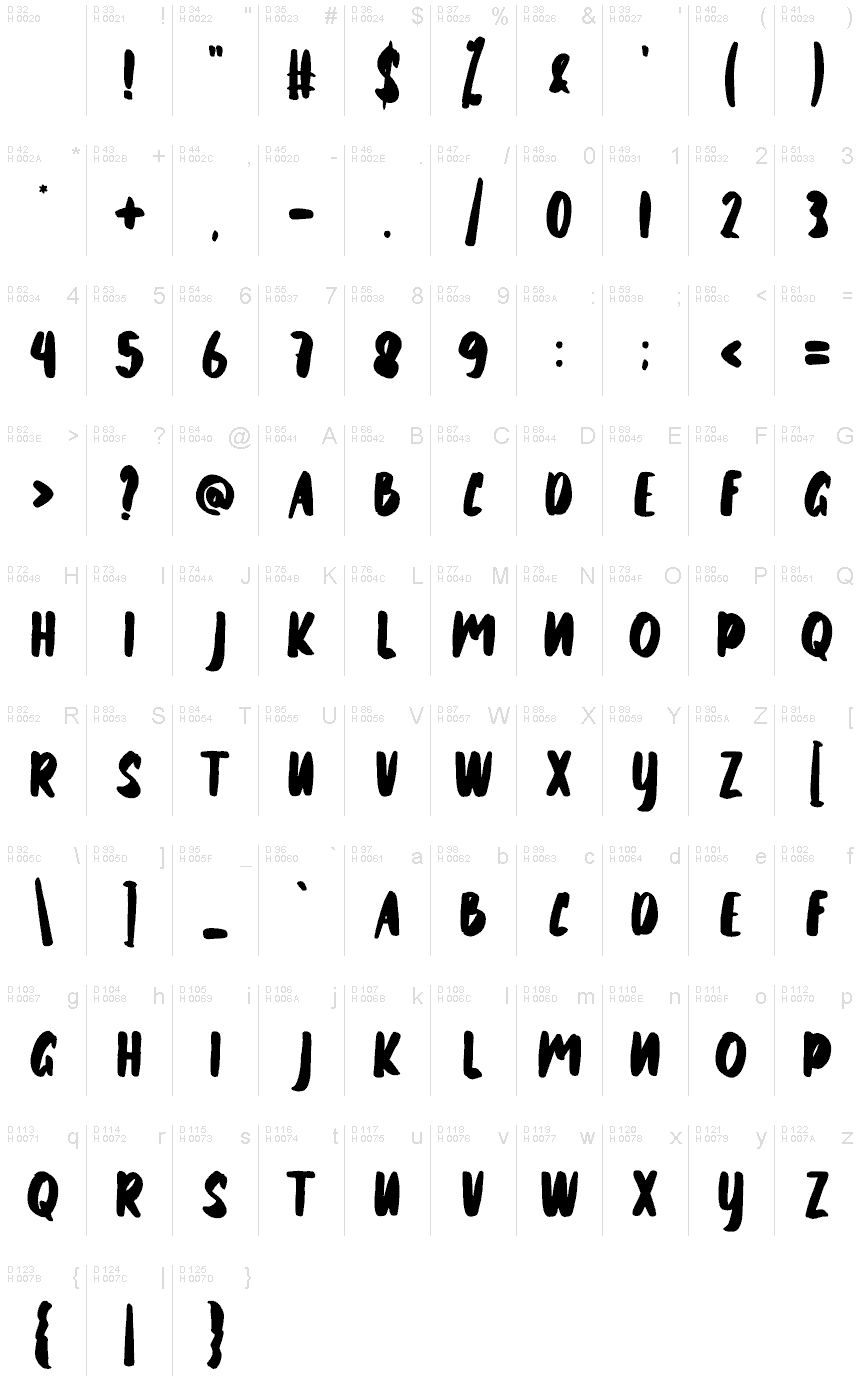
Orgalis
Orgalis font by Skiiller Studio is a free condensed bold brush font with an organic and expressive appearance. Its irregular shapes and bold presence make it perfectly modern, artistic and creative in every way. It’s the best at all contemporary uses in branding, advertising, packaging design, and many digital platforms.